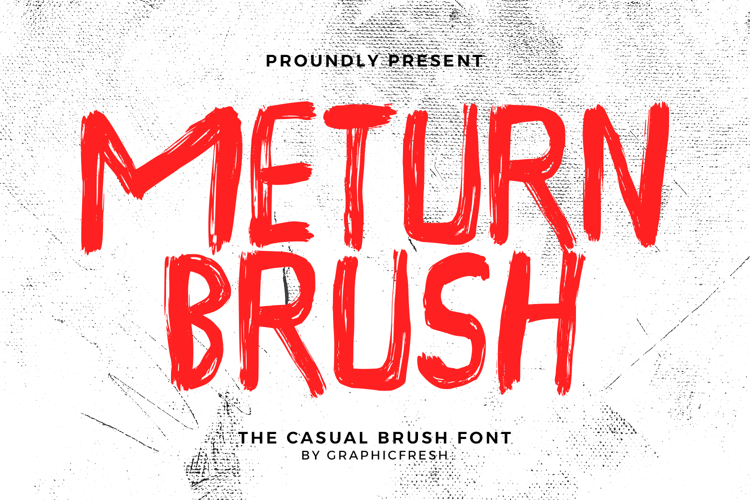
Meturn - The Casual Brush Font
Meturn is a casual brush font designed with relaxed strokes and natural hand-painted flow. Inspired by everyday handwriting, this font delivers a friendly and approachable feel while maintaining a modern brush character. Its smooth curves and slightly rough texture create a balanced look that feels both effortless and expressive.